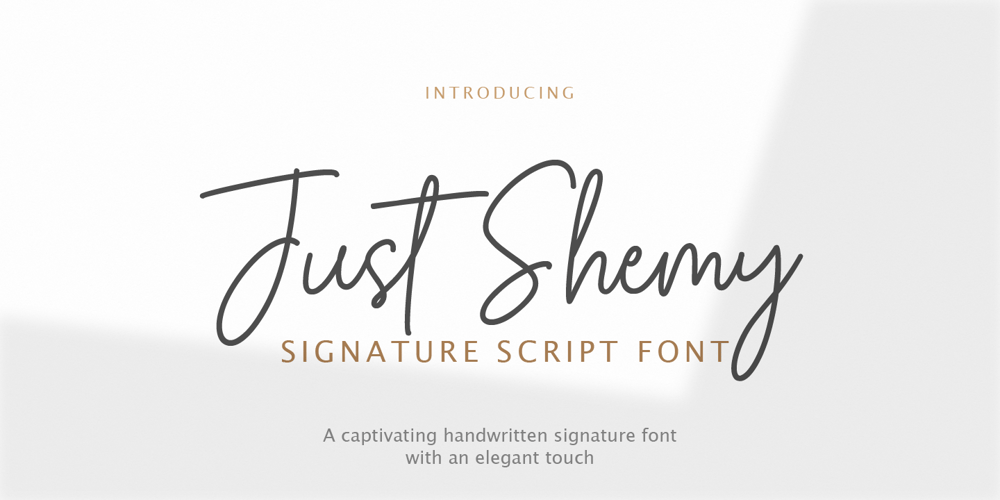
Just Shemy
Just Shemy font
Just Shemy Font Family was designed by Iqbal Pauji and published by Typebae. Just Shemy contains 1 styles and family package options. Just Shemy is a captivating handwritten signature font with an elegant touch. With its thin, monoline style, this font brings forth the beauty of natural handwriting. Each ink stroke appears so authentic, making Just Shemy Font the perfect choice for projects that require a personal and creative touch. With its luxurious simplicity, this font will captivate the eye and provide unmatched grace to your designs.